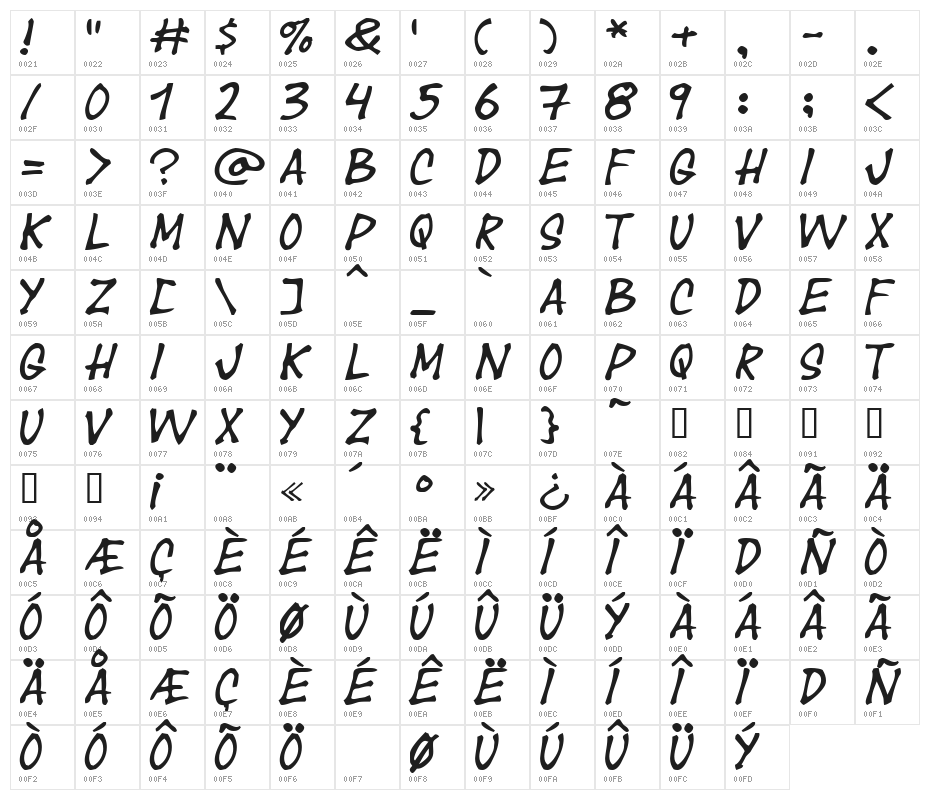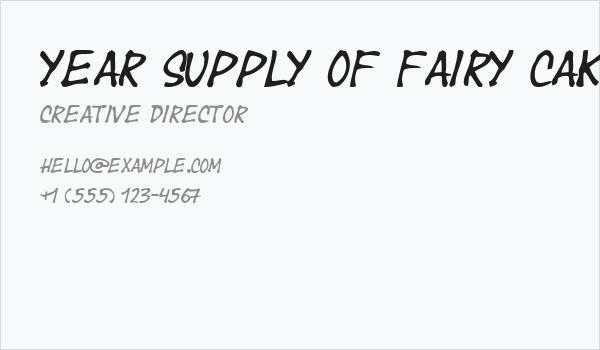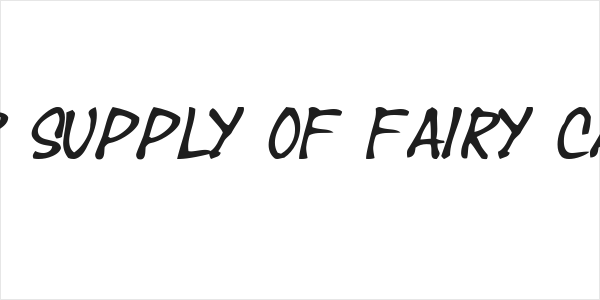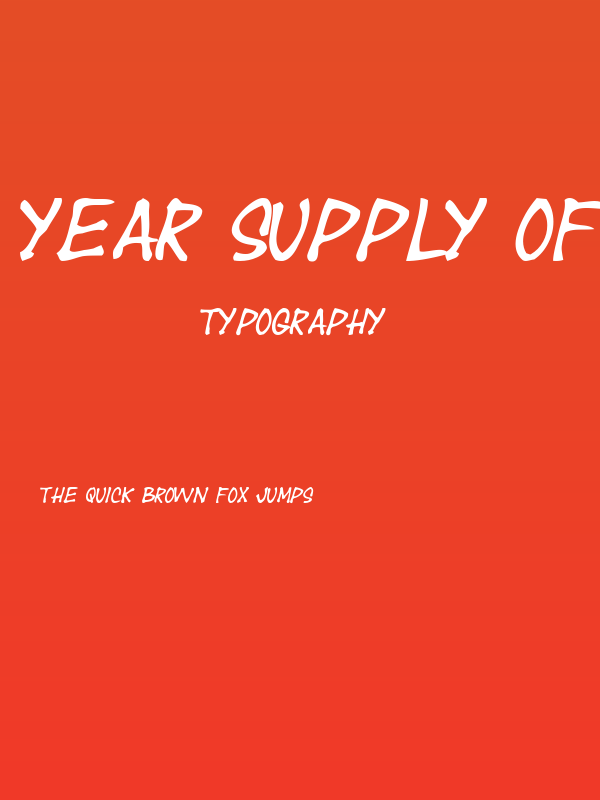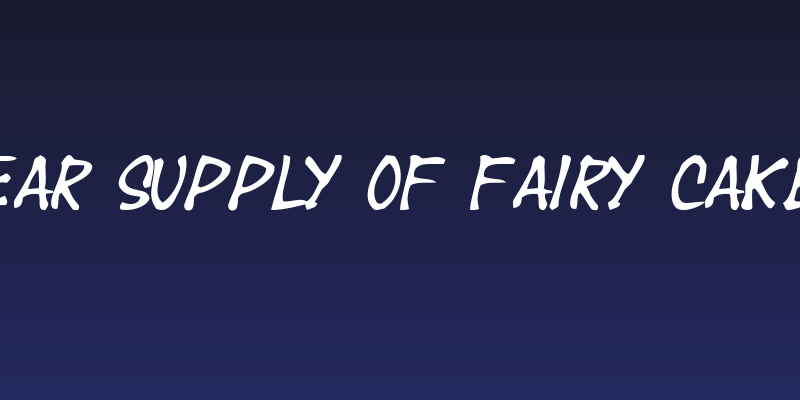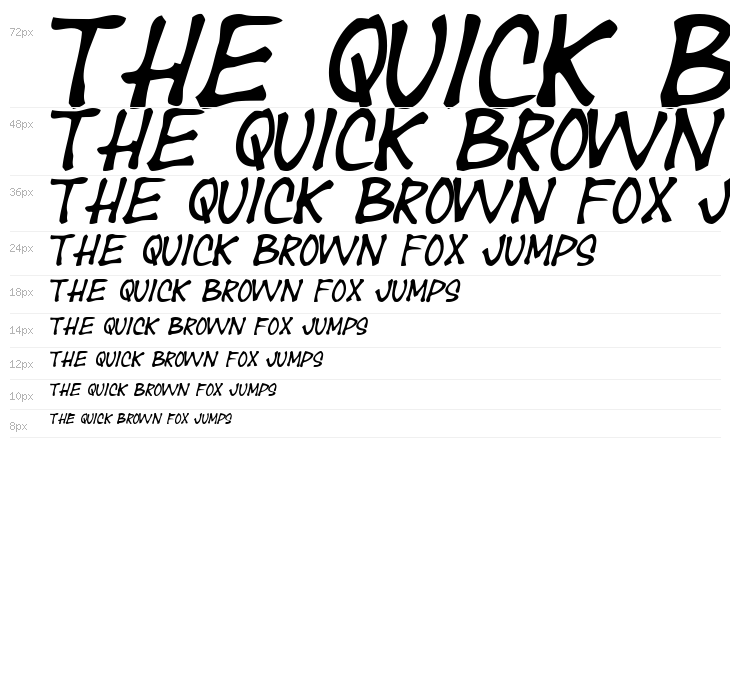
Year supply of fairy cakes Font
Year supply of fairy cakes Description
This font features a bold, handwritten style with a playful and energetic appearance. The characters are slightly slanted, giving a sense of movement and dynamism. The strokes are thick and consistent, with rounded edges that soften the overall look. This font exudes a casual and informal vibe, making it suitable for creative and fun projects. The uppercase and lowercase letters maintain a uniform style, while the numerals and special characters complement the alphabet with similar flair. The font's design is both approachable and distinctive, ideal for capturing attention.
| Proposed Projects | Ideal for greeting cards, children's books, playful branding, and social media graphics. |